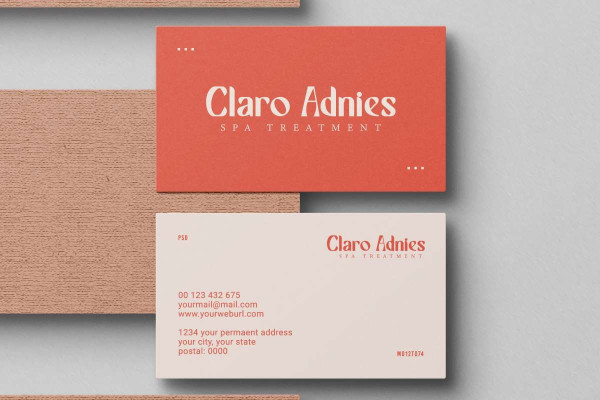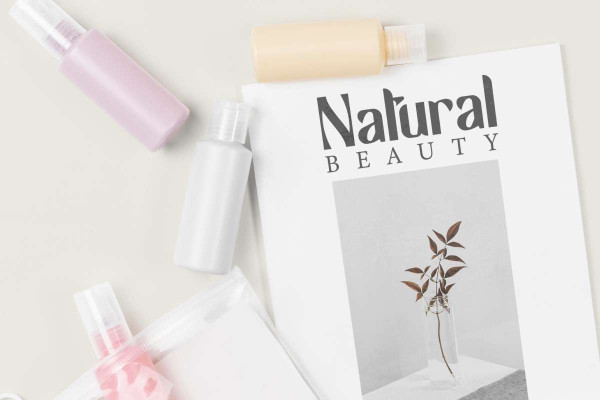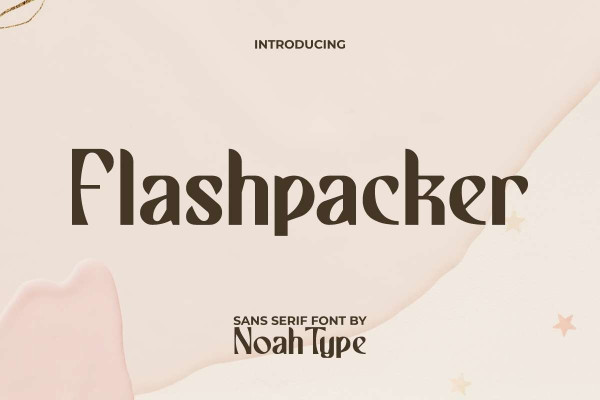
Flashpacker Font
Flashpacker Font is a uniquely fancy display font designed by NoahType. This font has unique curved lines on its edge of letters that will make your designs more interesting! It would be perfect choice for many industries, such as accessories, advertisement, beauty product, café, fashion, furniture, handicrafts, printing, publishing, restaurant, spa and salon, and more!
Flashpacker Font include full set of Uppercase and Lowercase Basic Characters, Numerals and Punctuation. This font will give you the sensation of the past timeless, also can be used in any design, such as business card, catalog, label, magazine poster, product packaging, screen printing, signage, stationery, sticker, title, website, etc.